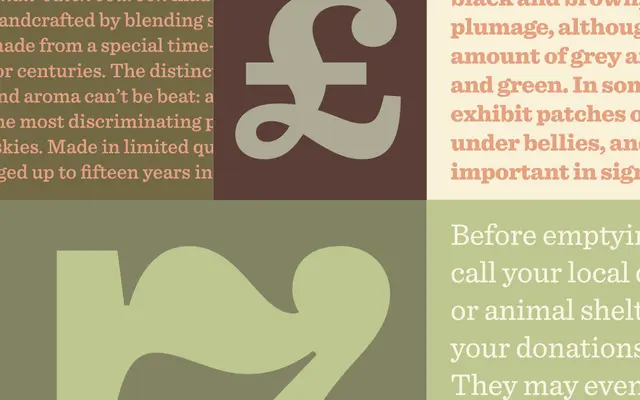
Sentinel
Hoefler & Co · Jonathan Hoefler, Tobias Frere-Jones · 2009
A Clarendon-style slab serif drawn to fix the historical gaps, with italics across six weights and an optical cut for text and screen.
A slab-serif family by Jonathan Hoefler and Tobias Frere-Jones that reworks the Clarendon tradition into a complete, modern typographic system. Sentinel borrows the contrasting thicks and thins of the Antique style but trades its frumpier mannerisms for contemporary detail, and unlike most Clarendons it carries italics across the full range. Six weights run from Light to Black, with short-ranging figures and language coverage tuned for text, and a Sentinel ScreenSmart cut handles small sizes on screen. Reach for it on editorial features, identity work, packaging and information design that wants the warmth of a slab serif with the discipline of a modern text family.
H&Co describe Sentinel as a fresh take on the classical slab serif, addressing the shortcomings of Geometrics, Antiques and Clarendons by providing italics across the full range, a working text family and a consistent progression of weights.